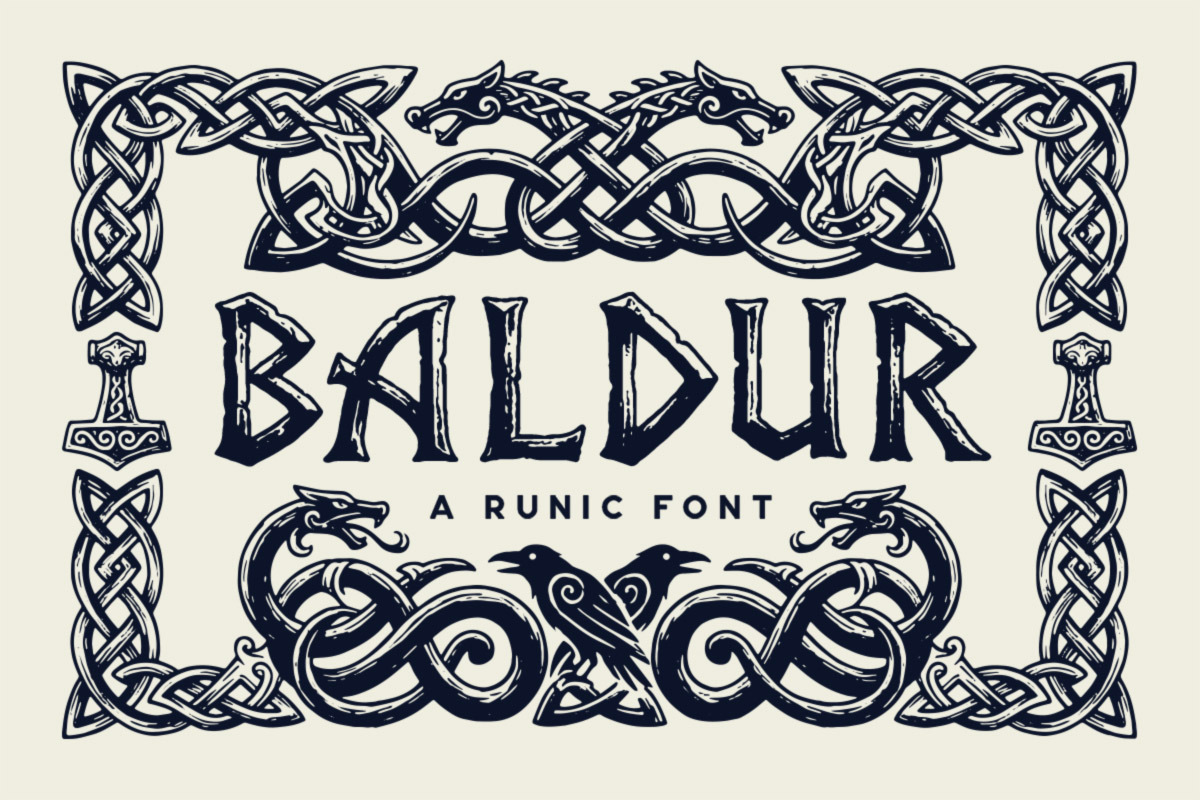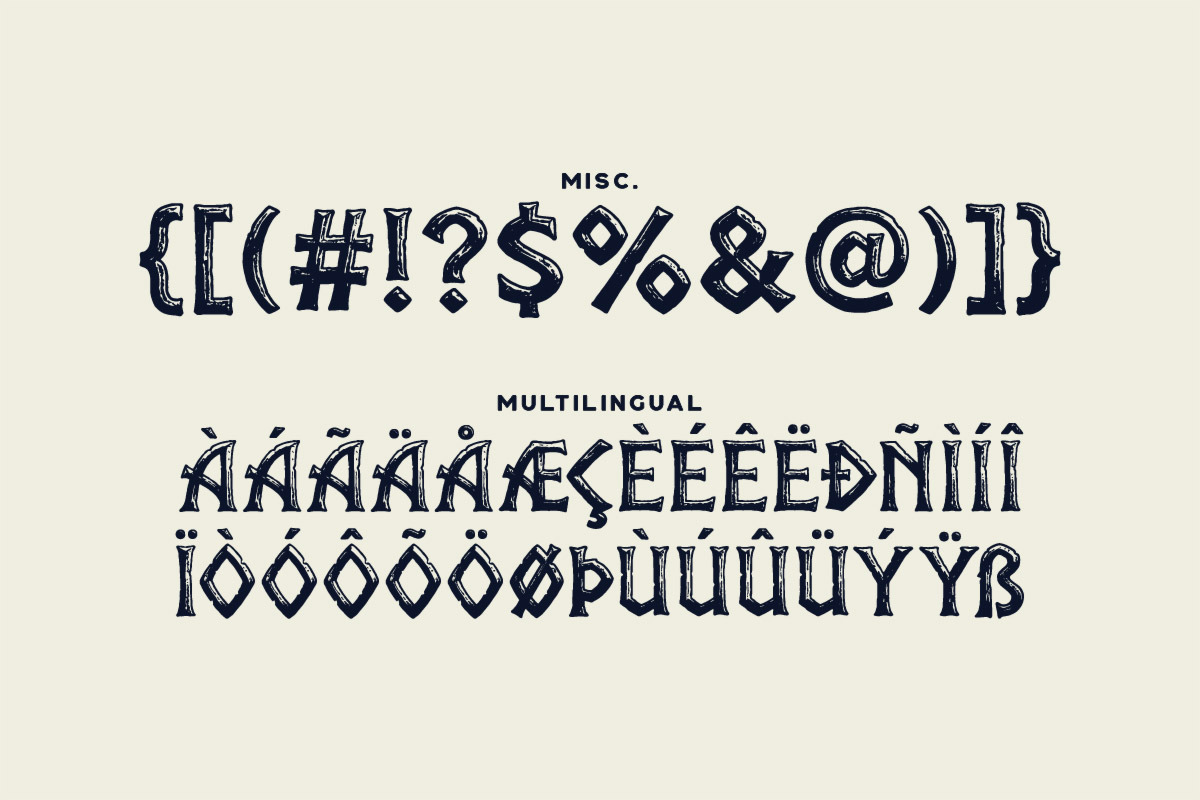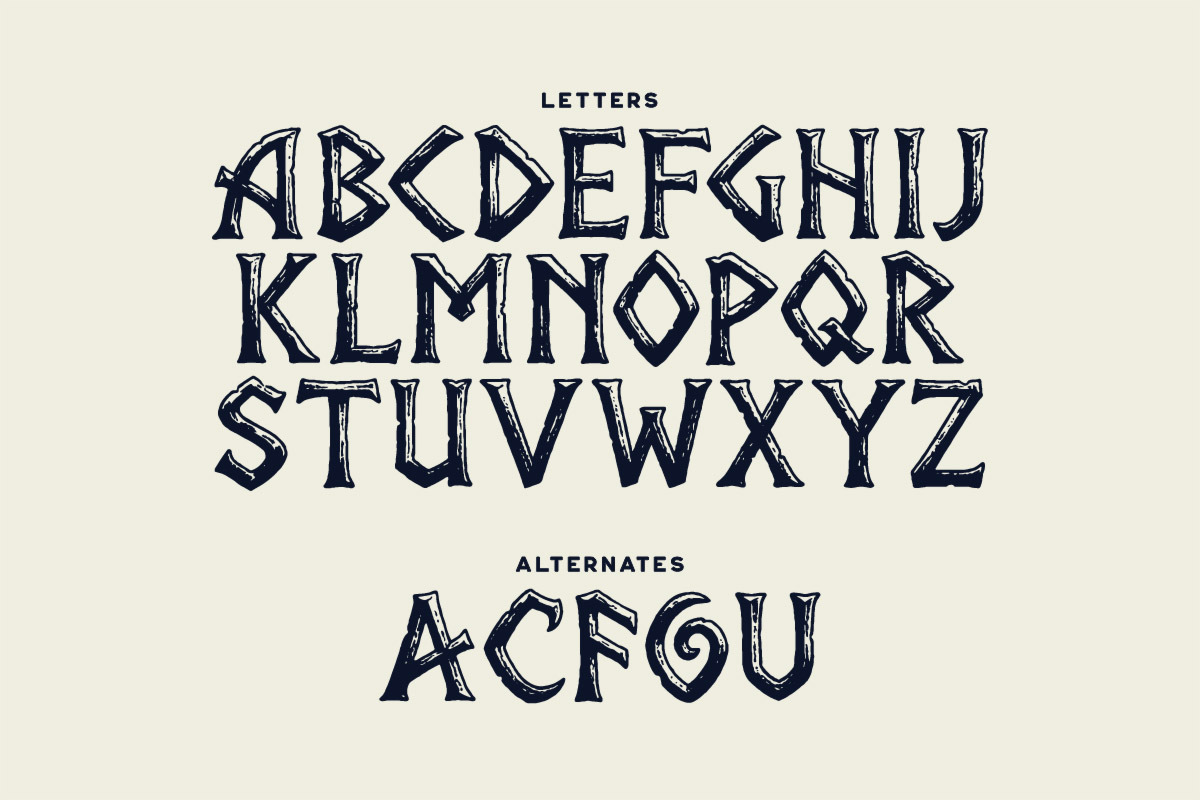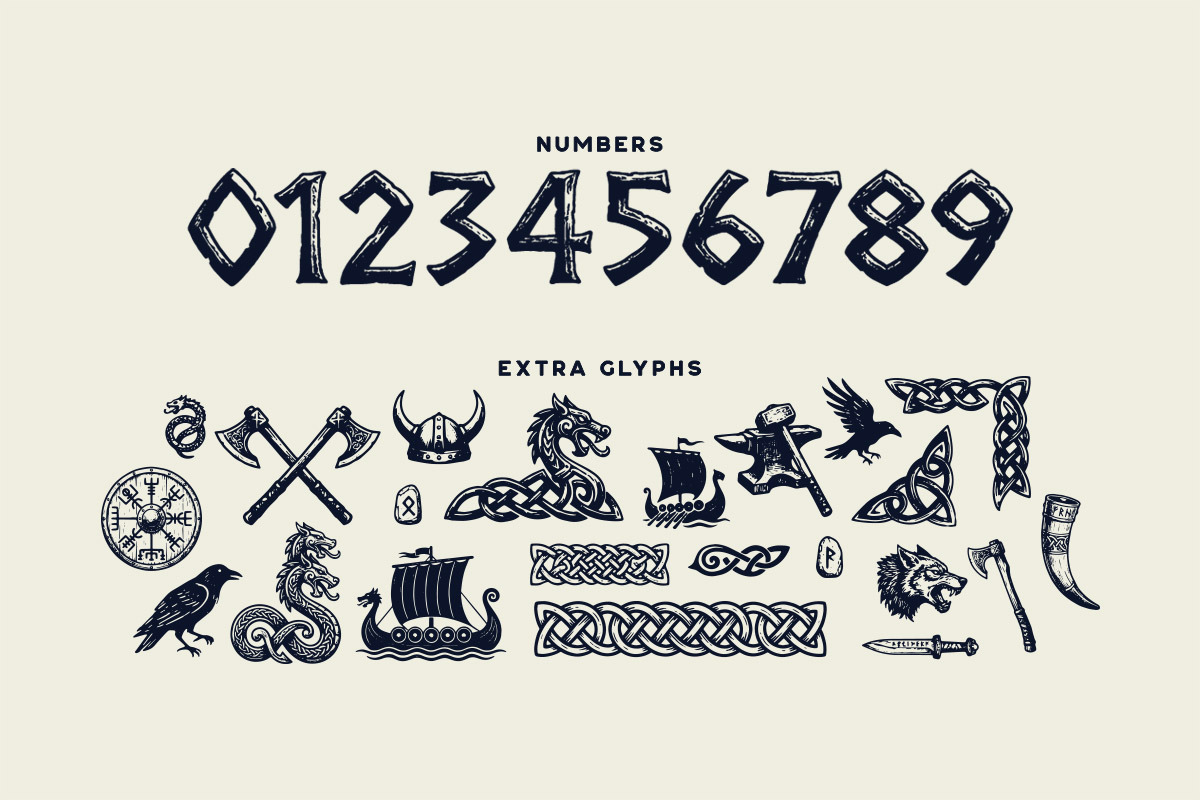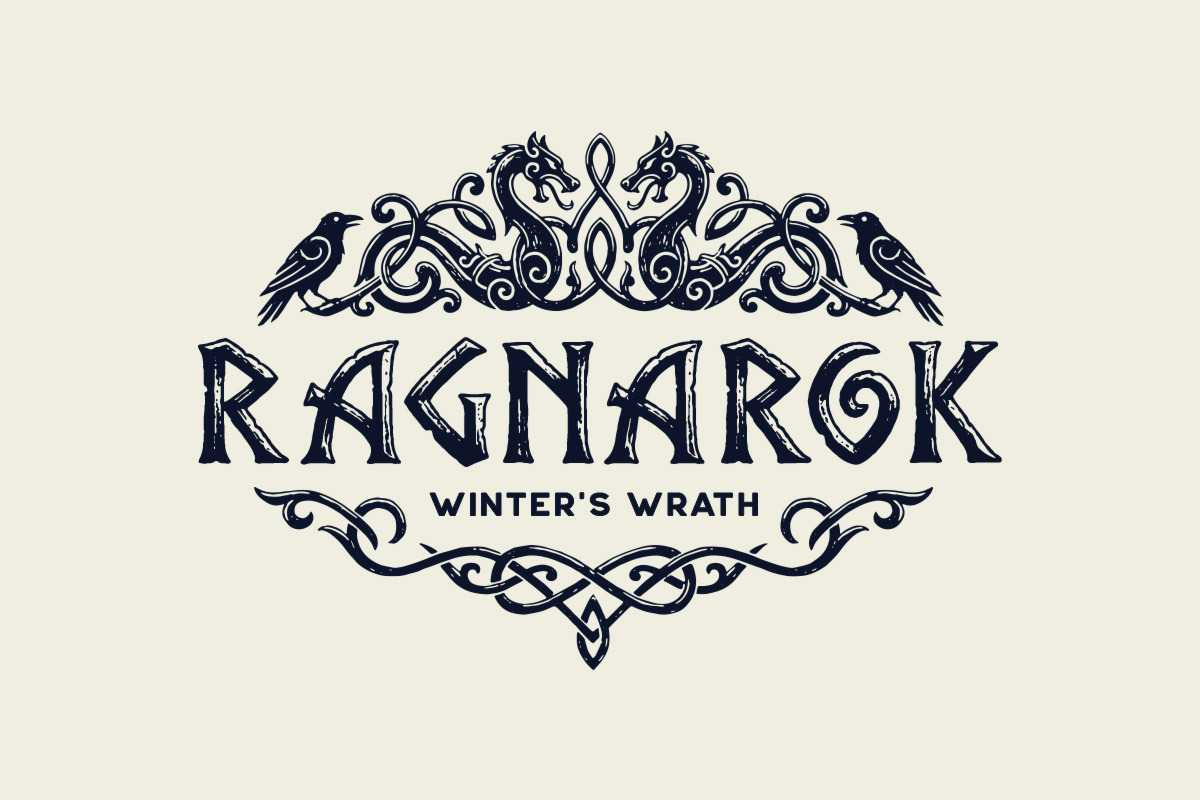
Baldur Typeface
Baldur is a bold runic display font inspired by Norse mythology, Viking carvings, and Celtic knotwork. Featuring uppercase letters, alternates, multilingual support, and extra ornamental glyphs, it’s perfect for fantasy logos, RPG titles, book covers, band merch, and epic medieval branding.